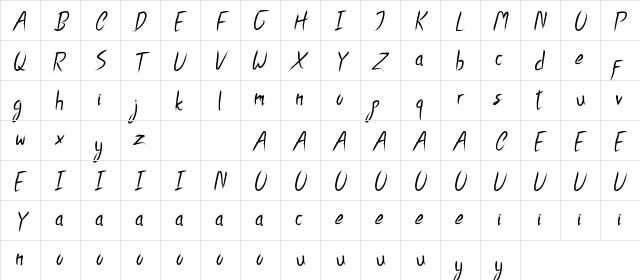
Oscar Wright Demo Regular
Foundry: Edric Studio
Designer: Ega & Suci Anita
Design Context for Oscar Wright Demo
Oscar Wright Demo is a composed and adaptable typeface that performs quietly and consistently across a wide range of design contexts.